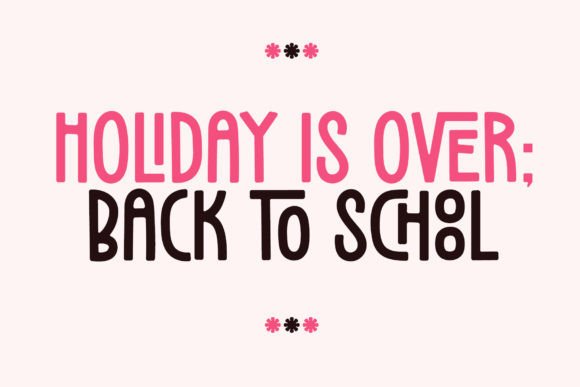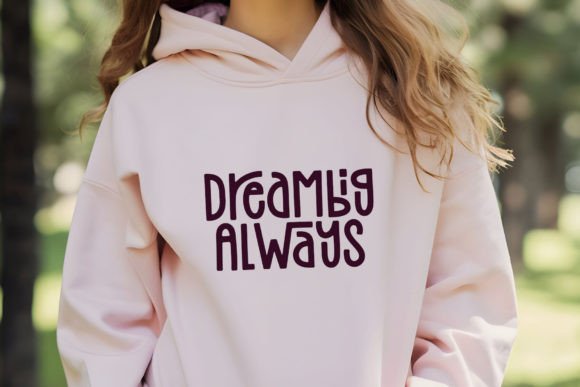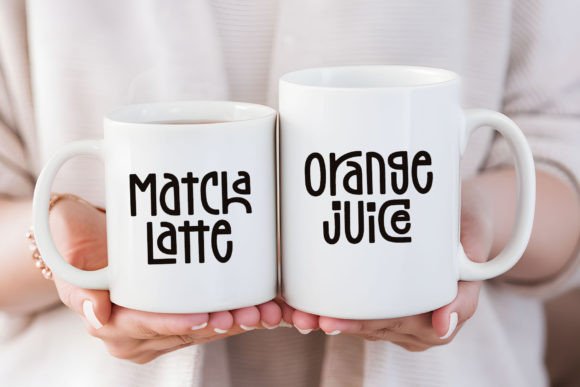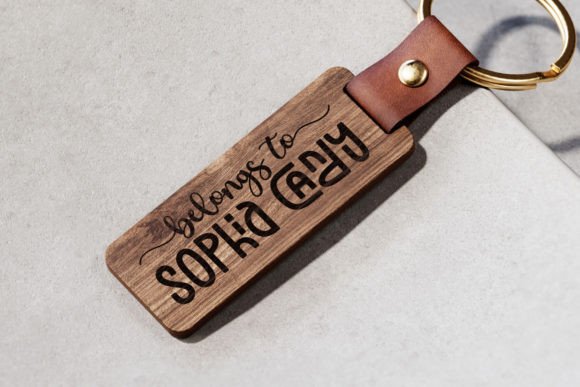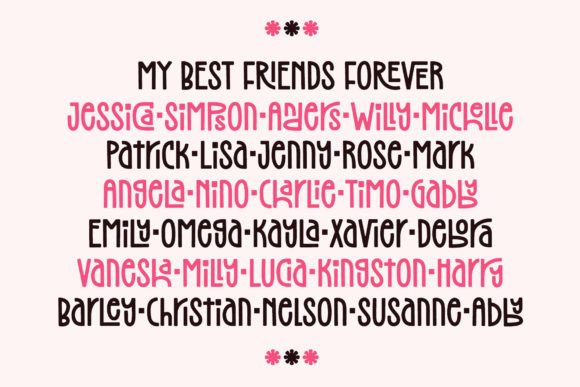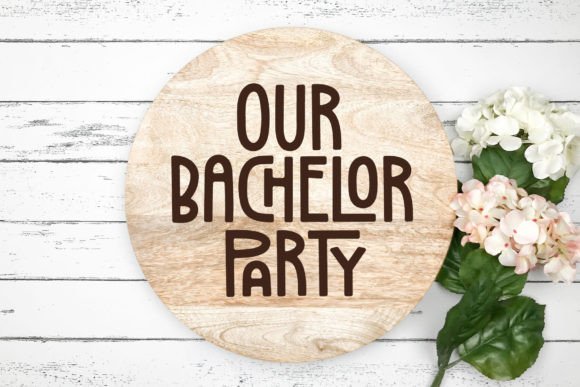
Introducing Brother Happyland Font: The Ultimate Display Font for Cute and Playful Designs
Are you tired of using the same old fonts for your design projects? Look no further! Brother Happyland Font is here to add a touch of fun and cuteness to your creations. This display font is perfect for designers and crafters who want to infuse their work with playful vibes. In this article, we’ll dive into the features and benefits of Brother Happyland Font, and explore how it can elevate your designs.
What is Brother Happyland Font?
Brother Happyland Font is a display font that exudes fun and cuteness. It’s designed to bring a smile to your face with its adorable ligatures and playful style. This font is perfect for projects that require a lighthearted and whimsical touch, such as logos, t-shirts, crafting, posters, branding, stickers, sublimation, quotes, and more.
Key Features of Brother Happyland Font
- Fun and Cute Vibes: Brother Happyland Font is designed to radiate cuteness and playful vibes, making it perfect for projects that require a lighthearted touch.
- Ligatures: This font features lots of ligatures for both uppercase and lowercase letters, adding an extra layer of cuteness to your designs.
- Display Font: Brother Happyland Font is a display font, making it perfect for headlines, titles, and other prominent text elements.
- Versatile: This font can be used for a wide range of projects, from logos and branding to crafting and sublimation.
Benefits of Using Brother Happyland Font
So, why should you choose Brother Happyland Font for your design projects? Here are just a few benefits:
- Adds a Touch of Whimsy: Brother Happyland Font adds a playful touch to your designs, making them more engaging and fun.
- Perfect for Cute and Playful Brands: If your brand has a playful and cute personality, Brother Happyland Font is the perfect choice.
- Increases Brand Recognition: Using a unique and recognizable font like Brother Happyland Font can help increase brand recognition and make your designs more memorable.
- Easy to Read: Despite its playful style, Brother Happyland Font is easy to read, making it perfect for use in a variety of contexts.
How to Use Brother Happyland Font
Using Brother Happyland Font is easy! Here are a few tips to get you started:
- Pair it with Other Fonts: Brother Happyland Font pairs well with other fonts, so don’t be afraid to experiment with different combinations.
- Use it for Headlines: This font is perfect for headlines and titles, so use it to add a touch of whimsy to your designs.
- Experiment with Colors: Brother Happyland Font looks great in a variety of colors, so don’t be afraid to experiment and find the perfect hue for your design.
Design Ideas Using Brother Happyland Font
- Logo Design: Use Brother Happyland Font to create a playful and memorable logo for your brand.
- T-Shirt Design: Create a fun and playful t-shirt design using Brother Happyland Font and a few colorful graphics.
- Poster Design: Use Brother Happyland Font to create a eye-catching poster for your next event or promotion.
- Branding: Use Brother Happyland Font consistently across your branding materials to create a cohesive and recognizable look.
In conclusion, Brother Happyland Font is a fun and playful display font that’s perfect for designers and crafters who want to add a touch of whimsy to their designs. With its adorable ligatures and cute style, this font is sure to bring a smile to your face. Whether you’re creating a logo, t-shirt, or poster, Brother Happyland Font is a great choice. So why wait? Download Brother Happyland Font today and start creating your own playful and memorable designs!